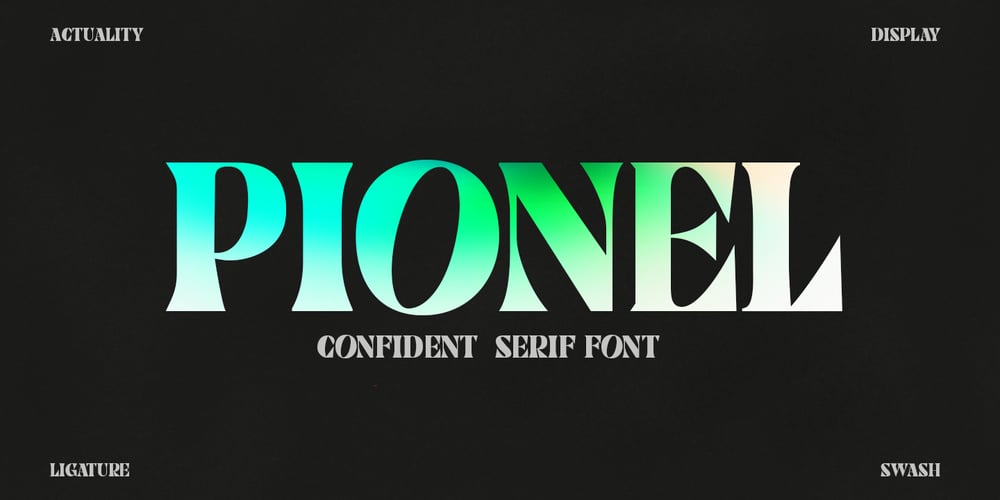
Pionel
Pionel font
Pionel Font Family was designed by Bebby Lutfitharina and published by Fontastic Lab. Pionel contains 2 styles and family package options. Pionel display font with charming and elegant style. Characters that match the latest style will be very interesting for you to create design works with classy models but still maintain a stable and classy style to look at.You will have inspiration with many Ligature and swash Glyph alternates styles to combine with your great creativity!Multilanguage Support.To be able to access these alternative letters, make sure the software you are using can support the opentype feature. and enjoy to welcome your year-end!